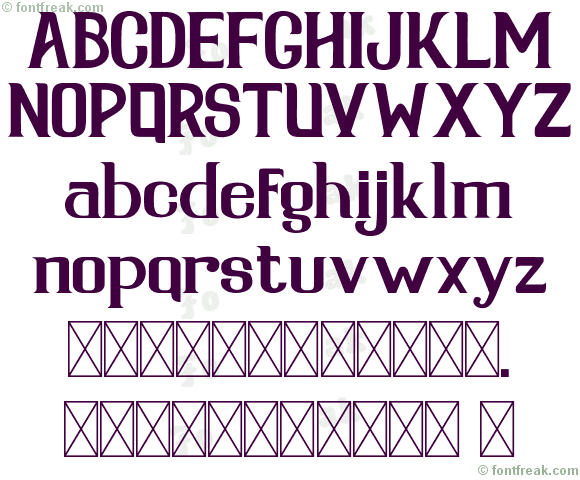
SerdaneRegular
About SerdaneRegular
SerdaneRegular is a striking serif font designed by Eknoji Studio, embodying a blend of classic elegance and contemporary flair. Its distinct stroke weight and moderate contrast create a balanced appearance, making the typeface visually appealing while maintaining readability. The thoughtful spacing between characters enhances legibility, ensuring that any text set in this font stands out. Decorative elements, including unique serifs and stylish curves, contribute to its sophisticated character, making it a versatile choice for various design projects.
This font is ideal for creating wedding invitations that exude romance and charm, as its elegant features complement the celebratory nature of such events. Additionally, SerdaneRegular is well-suited for movie posters, where its bold presence can attract attention and convey a sense of drama. Restaurant menus can also benefit from this typeface, as it adds a touch of sophistication that enhances the dining experience. Graphic designers will appreciate its versatility for branding projects, while small business owners can use it for promotional materials that require a polished and professional look.
Targeting a broad audience, SerdaneRegular appeals to graphic designers, small business owners, and content creators alike. Its free license allows for widespread use, making it accessible for various creative applications. Whether you are crafting a digital layout, designing printed materials, or developing a brand identity, SerdaneRegular offers a compelling option that can elevate your work.
Author Eknoji Studio